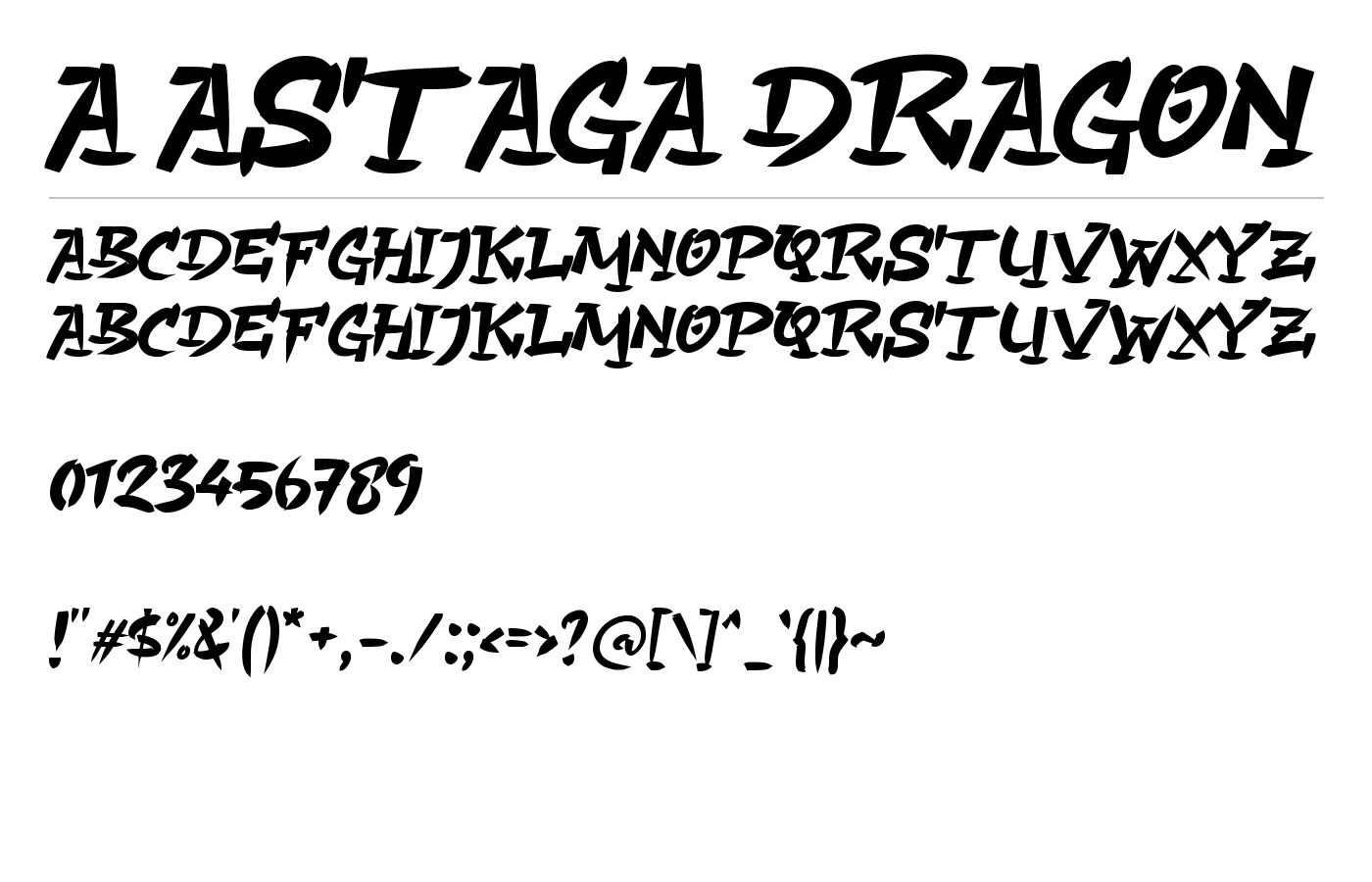
Astaga Dragon is a bold, decorative script-style font with a strong, energetic flair reminiscent of brush strokes and calligraphy, featuring sharp, angular edges and a lively rhythm. Its uppercase and lowercase letters blend seamlessly with unique, stylized shapes that convey a dynamic, adventurous personality, making it ideal for eye-catching headlines, logos, and creative projects needing a bold, spirited touch. This font works well in designs that want to evoke excitement, boldness, and artistic expression.
a Astaga Dragon Font
About a Astaga Dragon Font